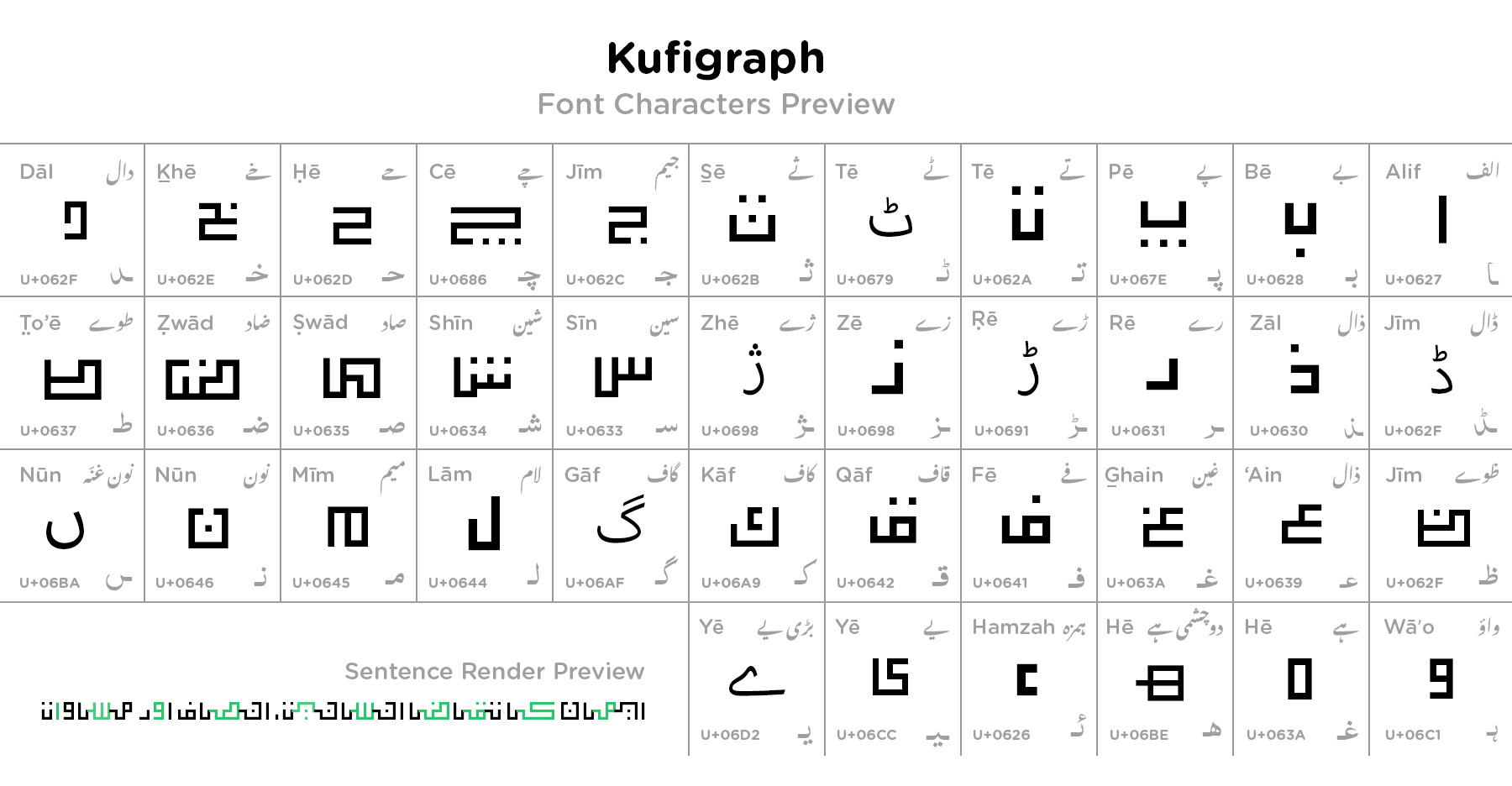
A pure square Kufic font, Kufigraph was designed by Mostafa El Abasiry. Released on 10th October, 2017, the font has a medium (normal) font width. It is an Arabic display typeface with a perfect geometric appearance. The baseline of this font is properly aligned with all the square-like characters, giving it a unique look. Furthermore, the geometric appearance of the font is categorized by precise curves, clean lines, as well as a dynamic stroke width. This well-aligned approach makes it a good option for designers searching for a modern font. With the character set of 258 and glyph count of 211, it is available in three different versions:
- Kufigraph Regular
- Kufigraph Light
- Kufigraph Bold
The versatility as well as range of weights this font offers make it appropriate for many applications, including advertising, branding, and editorial design. In addition, this font supports different Unicode blocks including Dingbats, Basic Latin, Arabic Presentation Forms-B, Arabic, and Arabic Presentation Forms-A. Overall, the innovative design makes this typeface a valued addition to any creator’s toolkit, providing a modern and fresh approach to Arabic typography.